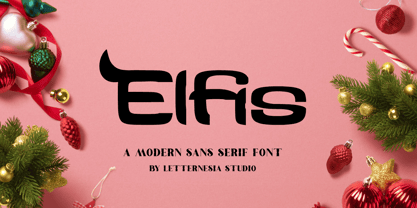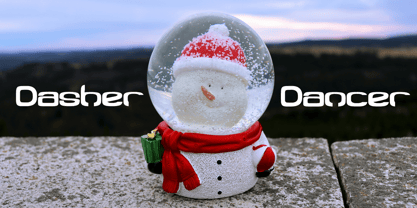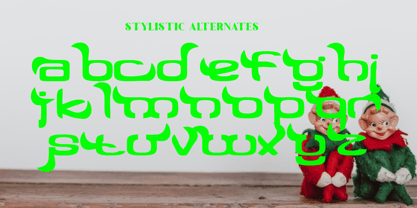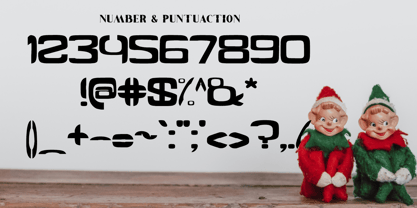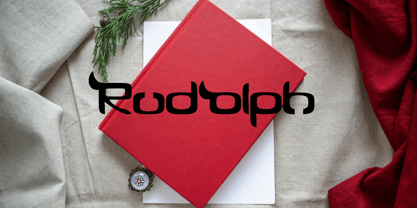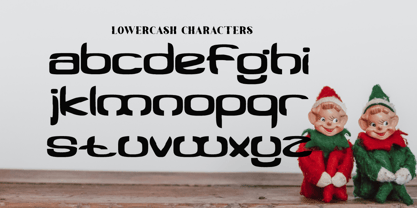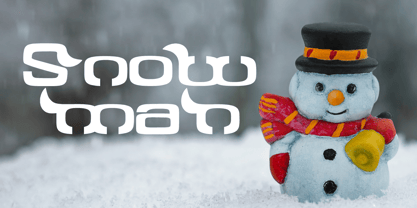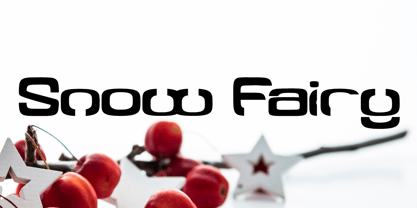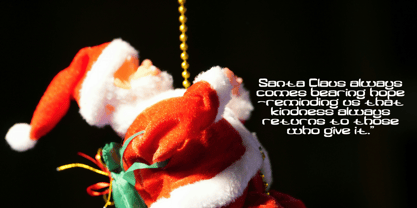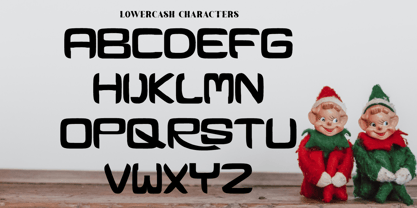
The Elfis Font Family was designed by Ta Siyo and published by Letternesia studio. Elfis contains 2 styles and family package options. More about this family
Elfis is a charming handwritten script font inspired by the magical atmosphere of winter holidays, fairy tales, and cheerful elf characters. Its gentle strokes and smooth curves create a warm, playful, and enchanting look—perfect for designs that want to feel cozy, cute, and full of wonder.Every letter is crafted to feel natural and elegant, giving your project a personal, handcrafted touch. With its clean readability and delightful ornamental flow, Elfis is ready to brighten any design with a sweet spark of seasonal joy.
Designers: Ta Siyo
Foundry: Letternesia studio
Elfis